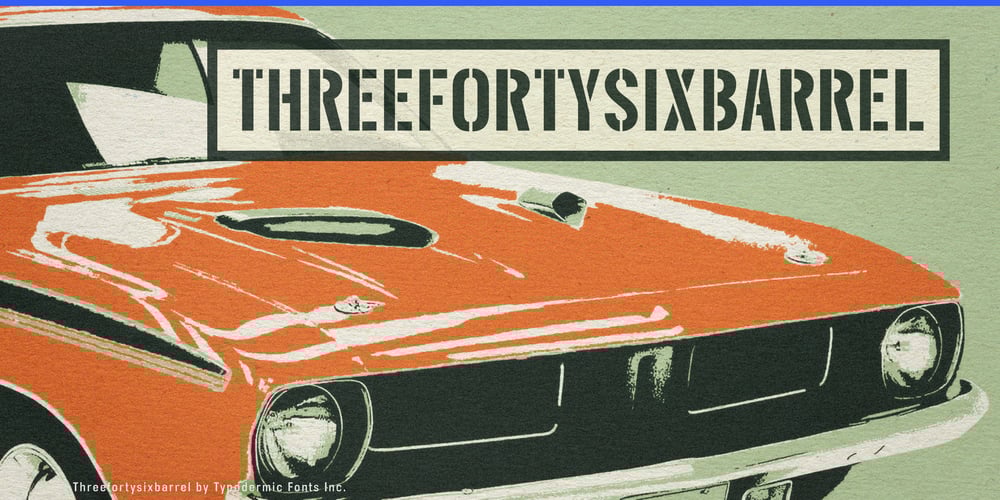
Threefortysixbarrel
Threefortysixbarrel font
Threefortysixbarrel Font Family was designed by Ray Larabie and published by Typodermic. Threefortysixbarrel contains 3 styles and family package options. Buckle up, typography enthusiasts—Threefortysixbarrel is about to take your designs from zero to sixty faster than you can say “muscle car.” This isn’t just a font; it’s a high-octane, rubber-burning tribute to the golden age of American automotive power.Peeled straight off the air filter of a ’70 Plymouth Barracuda, Threefortysixbarrel roars onto your screen with the subtlety of a V8 engine at full throttle. It’s barely street legal, just like the cars that inspired it, and it’s here to inject some serious horsepower into your layouts. But Threefortysixbarrel isn’t a one-trick pony car. Oh no, it comes in three distinct flavors, each ready to leave its mark on your designs:First up, we’ve got Threefortysixbarrel Classic—clean, serious, and powerful enough to leave skid marks on your portfolio. It’s for when you need your message to hit like a sledgehammer wrapped in chrome. Next, there’s Threefortysixbarrel Intake. This bad boy comes complete with a rust-kissed letterpress effect that’ll transport your audience straight back to the muscle car glory days. It’s perfect for designs that need a shot of pure, unfiltered nostalgia. Finally, meet Threefortysixbarrel Exhaust—raspy, faded, and hanging on by a thread. It’s the typographic equivalent of a barn-find Charger, worn but still ready to rumble. Use this when you want your words to look like they’ve seen more action than a stunt car in a Steve McQueen flick. But wait, there’s more! Threefortysixbarrel comes equipped with custom pairs that kick in automatically in OpenType-savvy apps. It’s like having a supercharger for your typography, breaking up repeated textures for an effect so real, you can almost smell the burning rubber. Threefortysixbarrel speaks more languages than an international car show. From Afrikaans to Zulu, it’s ready to flex its muscular glyphs across borders and cultures.So why settle for a typeface that purrs when you can have one that roars? Download Threefortysixbarrel now and watch your designs leave the competition in the dust. It’s time to put the pedal to the metal and take your typography on a wild ride—no driver’s license required!